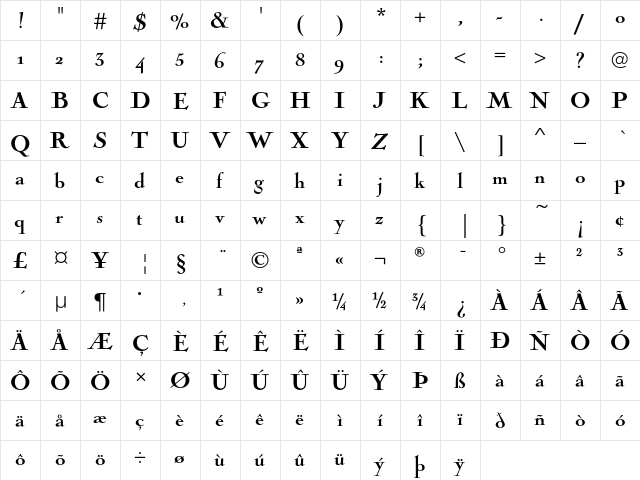
NicolasCochinEF Black Font Preview
NicolasCochinEF Black
NicolasCochinEF Black Font Details
Design Context for NicolasCochinEF Typeface
NicolasCochinEF takes a measured approach to typography — its balanced proportions and neutral character make it a reliable workhorse for both digital and print work.